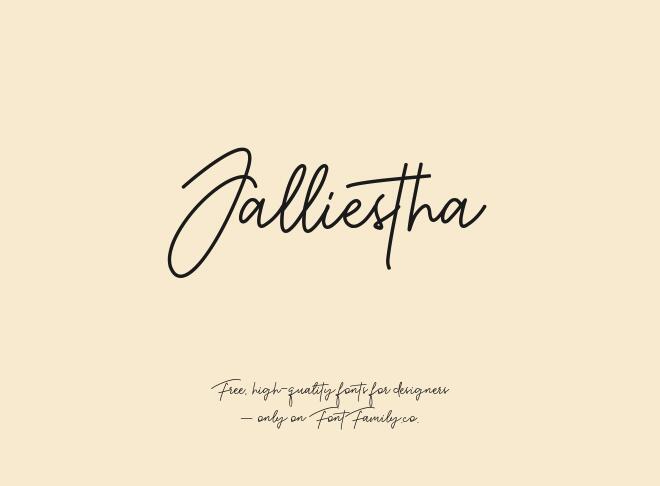
Jalliestha Font
Jalliestha Font is a stunning handwritten script typeface that exudes elegance and sophistication. Crafted by Creative Type Studio, it features beautifully flowing characters and a unique personal touch. Jalliestha Font is incredibly versatile and perfect for a wide range of design projects, from wedding invitations to personalized logos and branding. It stands out with its smooth lines and delicate letterforms, offering a warm and inviting aesthetic that makes every design look special. Compared to other fonts in the script category, Jalliestha offers a more refined and polished look, making it a great choice for designers aiming to convey a sense of elegance and class. This font is free for personal use and ideal for those looking to add a touch of elegance to their creative projects.